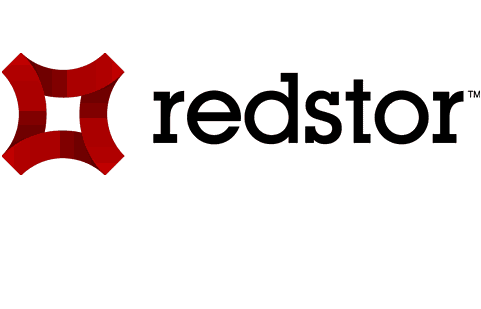
1ON Posted May 9, 2013 Share Posted May 9, 2013 Is anyone able to determine the font in the logo :) virtual cookies are on offer to the winner!!! Link to comment Share on other sites More sharing options...
andy_cris Posted May 9, 2013 Share Posted May 9, 2013 Looks like a modified version of glypha:http://www.myfonts.com/fonts/linotype/glypha/ or rockwell:http://www.myfonts.com/fonts/adobe/rockwell/. Chasethebase 1 Share Link to comment Share on other sites More sharing options...
game_over Posted May 9, 2013 Share Posted May 9, 2013 It's a slab font look here: http://www.fontsquirrel.com/fonts/list/style/Slab%20Serif you'll find it or very similar. Link to comment Share on other sites More sharing options...
123456789A Posted May 9, 2013 Share Posted May 9, 2013 My guess would be Times New Roman bold. Link to comment Share on other sites More sharing options...